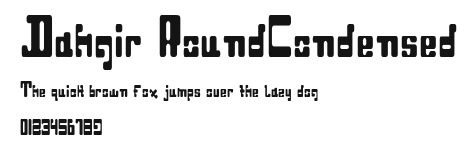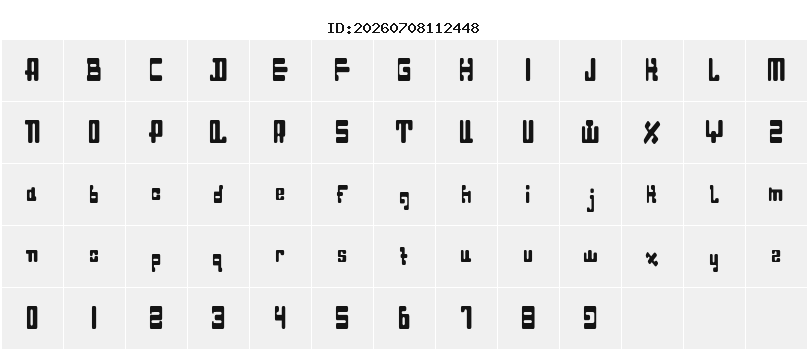
About Dahgir RoundCondensed.otf
Dahgir RoundCondensed.otf is a modern, elegant sans-serif font designed for ultimate readability and visual harmony. Perfect for branding, headlines, web design, and print materials.